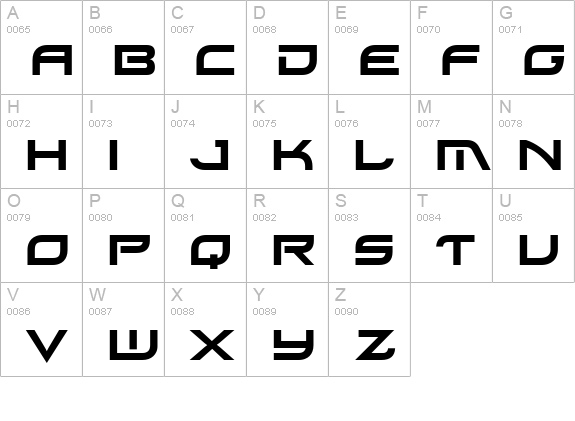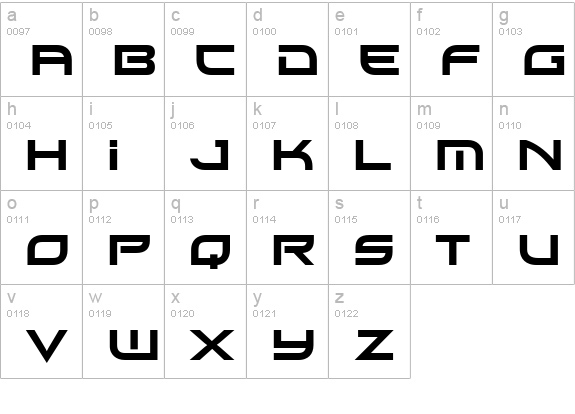
Xirod Font Details
Xirod font is a modern and stylish typeface that is perfect for various design projects. Its sleek and clean lines make it versatile for both headings and body text. The Xirod font exudes a sense of sophistication and elegance, making it ideal for creating professional and eye-catching designs. One of the best things about the Xirod font is that it is available for free download at FontsMarket.com. This means that you can easily access this high-quality font without having to spend a dime. Whether you are a designer looking to enhance your projects or someone in need of a stylish font for personal use, Xirod is a great choice that won't cost you anything. Download Xirod font today and elevate your designs with its sleek and modern aesthetic.